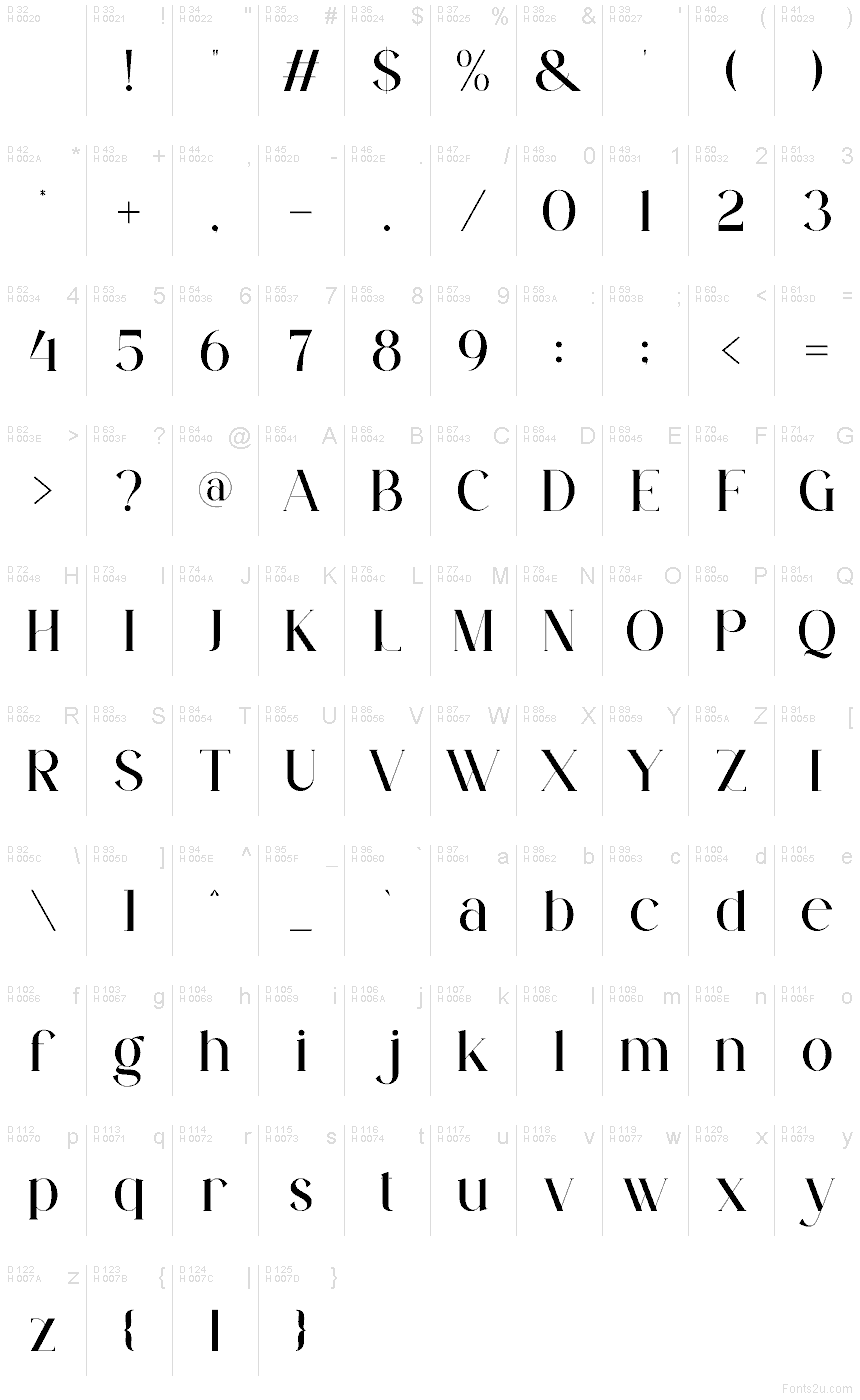
Beldin
Beldin font by Ermedia Studio is a free retro display font. Its defining move is that sharp, high-contrast rhythm—inky, weighty strokes sliced by hairline thins—creating a chic, editorial snap. The counters feel sculpted and smooth, while the verticals stand tall and steady, giving headlines a luxe hush before they speak. Set large, it delivers that glossy-magazine drama without shouting.
Using Beldin, you’ll shine on beauty branding, fashion posters, wine labels, boutique packaging, editorial mastheads, and elegant invitations. This free font rewards generous letterspacing at big sizes. Pair it with a clean grotesk or geometric sans for body text to let those dramatic curves breathe.